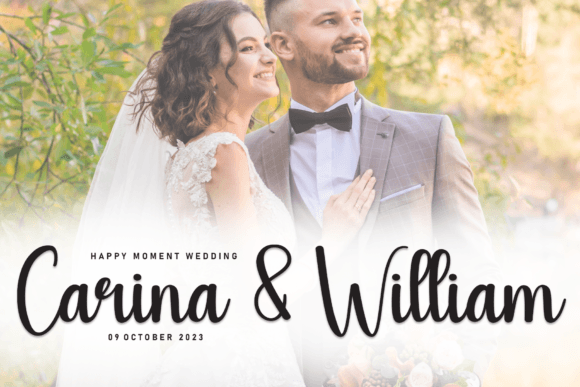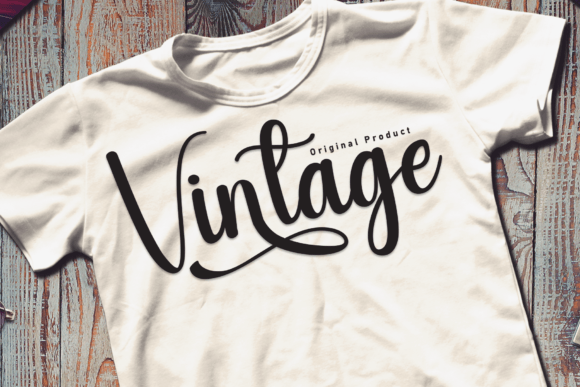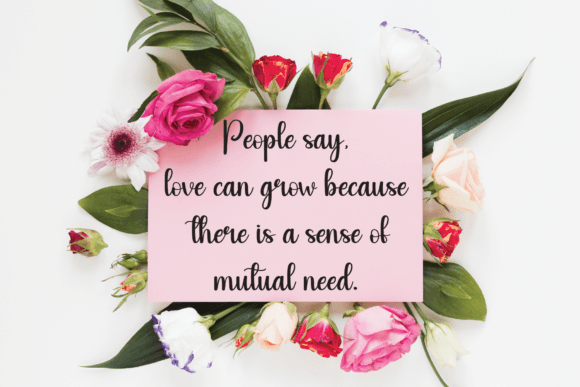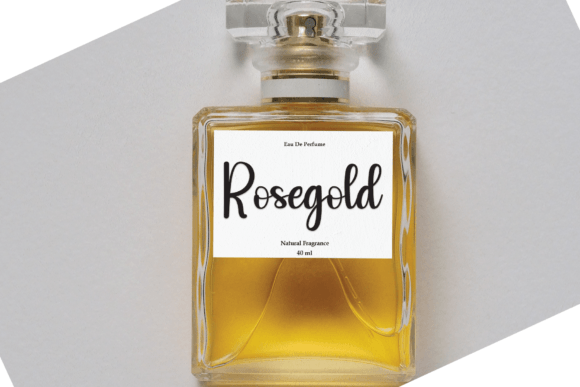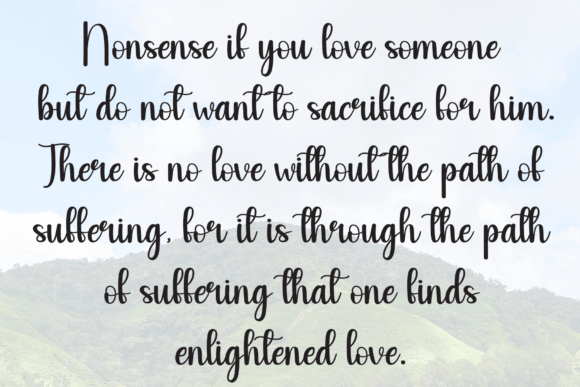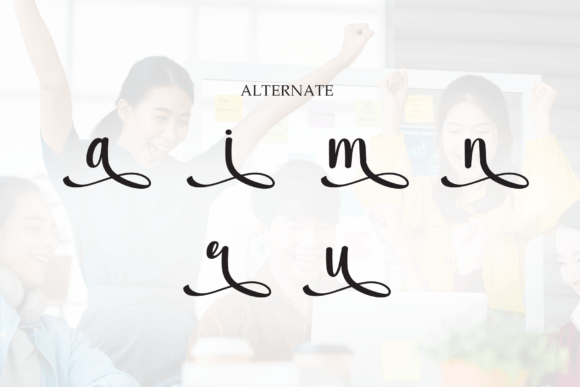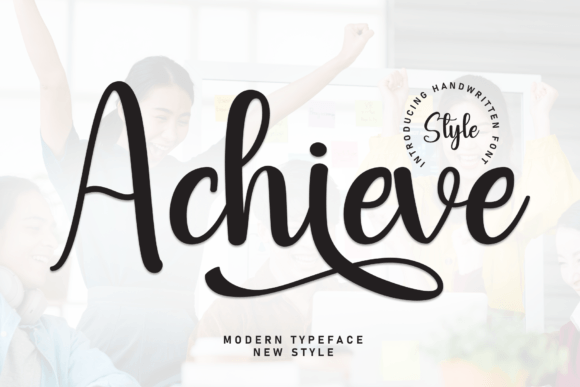
The Sweet & Friendly Achieve Font: A Designer’s New Best Friend
I’ll never forget the time I was working on a wedding invitation project, and my client asked for a font that was “fun, yet elegant.” I scoured the internet, tried out dozens of fonts, but nothing seemed quite right. That was until I stumbled upon the Achieve font. This sweet and friendly handwritten display font has been a game-changer for my designs, and I’m excited to share it with you!
An Honest Review of Achieve Font
- ✨ Cute and fun: Achieve font is perfect for adding a playful touch to any design.
- ✅ Elegant and sophisticated: Despite its playful nature, Achieve font still exudes a sense of elegance and sophistication.
- 💕 Perfect for wedding designs: The font’s sweet and romantic vibe makes it ideal for wedding invitations, cards, and other wedding-related designs.
- 🎨 Versatile: Achieve font can be used for a variety of design projects, from greeting cards to social media graphics.
While Achieve font is an amazing addition to any design project, there are a few things to keep in mind:
- 🤔 Limited use in body text: Due to its display nature, Achieve font might not be the best choice for large blocks of body text.
- ⚠️ Some letters may appear similar: A few letters, like “I” and “l”, might appear similar, which can make reading more difficult if not used carefully.
The Backstory of Achieve Font
Achieve font was designed with love and care by a talented type designer who wanted to create a font that would bring joy and happiness to designers and crafters. The designer’s inspiration came from classic handwritten fonts, with a modern twist to make it fresh and fun.
Q: What type of designs is Achieve font best suited for?
A: Achieve font is perfect for wedding invitations, cards, and other designs that require a fun and elegant touch.
Q: Is Achieve font available in different weights or styles?
A: Currently, Achieve font is available in a single weight, but the designer may release additional weights or styles in the future.